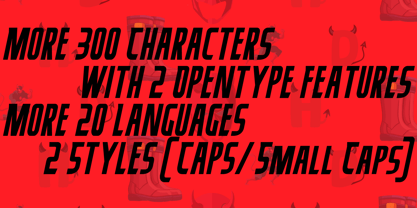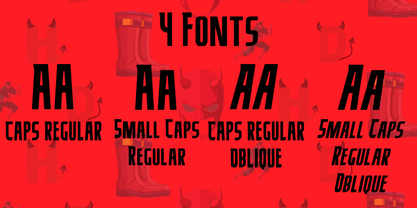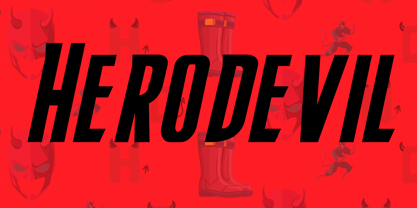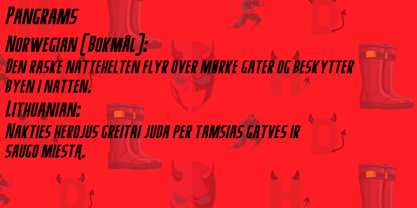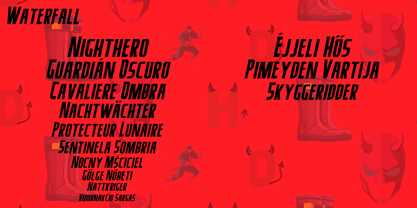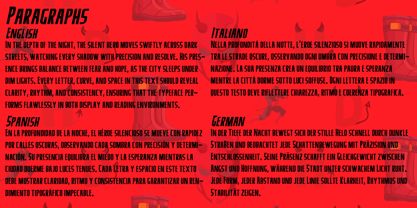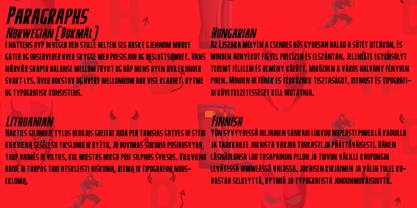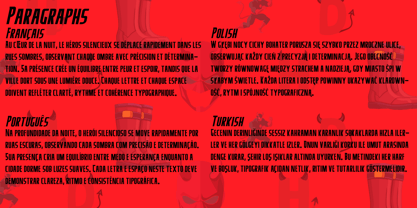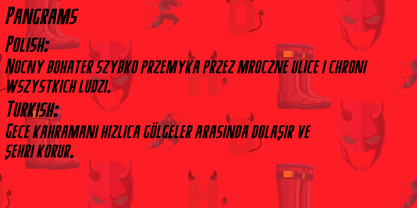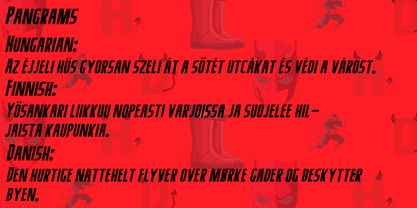
Herodevil
by JK Typeface
The Herodevil Font Family was designed by Hilton Santos and published by JK Typeface. Herodevil contains 4 styles and family package options. More about this family
This typeface is unapologetically loud—a visual scream designed to capture attention immediately. It embodies a raw, masculine energy that balances modern industrial aesthetics with rebellious street style. The heavy, monolithic weight of the uppercase lettering forms a commanding text block that demands to be noticed. Sharp, angular terminations slice through whitespace with precision, conveying urgency and impact. This typeface is not suited for subtle narratives; it serves as the typographic equivalent of a heavy bass line or a door slamming shut—ideal for high-octane headlines, esports branding, or album art that requires a striking presence.
Designers: Hilton Santos
Foundry: JK Typeface